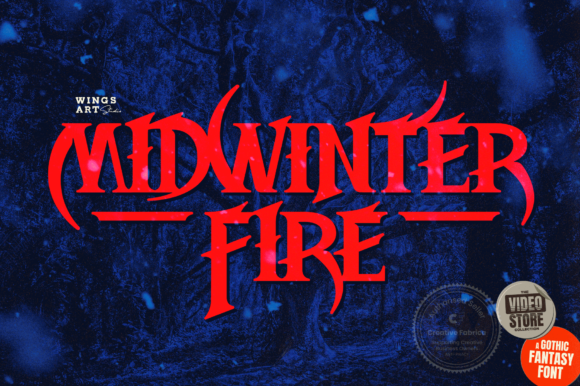
Unleash Dramatic Flair with Midwinter Fire Font
A Typeface with Gothic Soul and Modern Edge
Finding a typeface that balances raw personality with professional utility can be a challenge. Midwinter Fire Font enters the scene as a compelling solution, offering a distinctly gothic, dark, and bold display aesthetic. This isn't your average decorative font; it's a tool built for impact. Its visual character is immediately striking—think sharp, high-contrast letterforms with a sense of historical weight, yet crafted with a contemporary designer's eye. The overall appeal lies in its ability to convey drama, sophistication, and a touch of the mysterious without sacrificing clarity in the right context.
What truly elevates this premium font is its technical foundation. Being PUA encoded means every stylistic alternate, ligature, and glyph is fully accessible through standard character maps in design software. For a designer, this translates to effortless exploration. You can easily swap a standard "t" for one with a decorative crossbar or connect specific letters with a unique ligature to create a custom wordmark. This level of control is essential for crafting authentic, one-of-a-kind designs rather than settling for a static, out-of-the-box font. It empowers you to treat the typeface as a living component of your brand identity.
Strategic Applications for Maximum Impact
Understanding where a display font like Midwinter Fire thrives is key to using it effectively. Its inherent drama makes it a natural fit for projects aiming to evoke a specific mood. Consider it for logo design for niche brands in entertainment, gaming, artisan crafts, or luxury goods where a bold statement is desired. In editorial design, it can transform a book cover, magazine headline, or album artwork, instantly setting a tone that draws the reader in. The font's character shines in packaging design for products like craft spirits, specialty coffees, or dark-themed confectionery, where it can communicate heritage, intensity, and premium quality.
Beyond print, its applications in the digital realm are equally potent. For web design, use it sparingly but strategically for hero section headlines, impactful call-to-action buttons, or section headers to create visual anchors. It can make social media graphics for event promotions, podcast covers, or brand announcements pop off the screen, increasing engagement. Small business owners can leverage it on signage, menus, or merchandise to build a memorable, cohesive look. The key is to view it as an accent—a powerful creative font for headlines and short phrases rather than body copy.
Mastering Readability and Professional Pairings
The bold, gothic nature of Midwinter Fire Font naturally influences visual hierarchy. It will dominate a layout, which is its purpose. To maintain professionalism, pair it thoughtfully. A classic serif font for body text can complement its historical vibe, while a clean, geometric sans serif font can provide a modern counterbalance, creating a dynamic tension. Avoid pairing it with another highly decorative script font or handwritten font, as this often leads to visual clutter. Test your pairings at various sizes to ensure the supporting typeface remains highly legible.
When evaluating its fit for a project, consider your audience. This typeface resonates with adults who appreciate craftsmanship, narrative, and distinctiveness. It may not suit a corporate financial report but could be perfect for a boutique hotel's branding or a musician's portfolio. Always review the full character set and included styles before finalizing a design. Check the licensing carefully to ensure it covers your intended use, whether for a personal blog or a commercial product line. By integrating Midwinter Fire Font as a considered design asset, you're not just choosing a font—you're injecting a narrative voice into your work, one that commands attention and leaves a lasting impression.